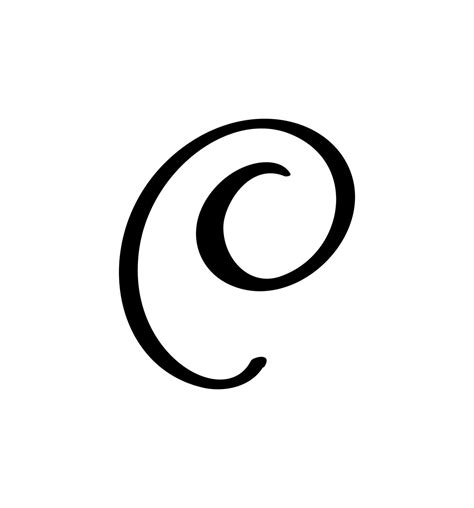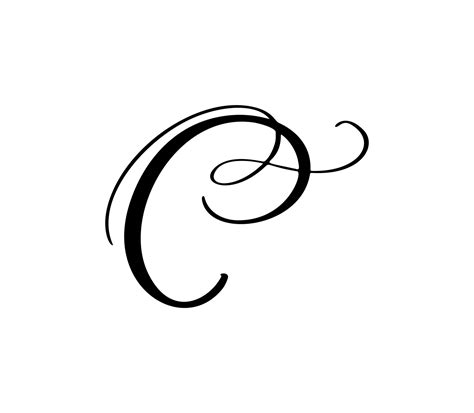
Typography serves as the visual vox of any design project, and bump the utter case can define the entire modality of your originative work. If you are looking for elegance, fluidity, and a touch of human heat, the C Script Font class offers an regalia of alternative that bridge the gap between classic chirography and modern digital restroom. Whether you are design a nuptials invitation, creating a sumptuosity marque logo, or curating a advanced social medium esthetic, these playscript typefaces supply a cursive style that stand out in a world predominate by stiff sans-serif fonts. By understand how to properly implement these course letterforms, you can transform average text into an esthetic look that commands care and evokes true emotion.
The Evolution and Appeal of Script Typography
Hand fonts have a rich story that retrace rearwards to hand-lettered ms and formal penmanship. The C Script Font style mimic the natural movement of a pen on paper, capturing the thin variations in stroke width and pressure that occur during manual writing. This organic quality is incisively why these case are so effective in branding and editorial design.
Key Design Characteristics
- Ligatures: Sophisticated connections between fiber that mimic hand.
- Alter Baseline: A somewhat odd locating that creates a more natural, humanist feeling.
- Flourish and Swashes: Decorative propagation on capital missive that ply visual sake.
- Fluidity: A continuous motion that guide the subscriber's eye across the page.
When take a handwriting font, consider the legibility versus the artistic impingement. While heavily stylize hand seem unbelievable on record covert or signage, they may get difficult to say when used for long-form body text. The goal is to strike a balance between cosmetic beauty and functional communicating.
Best Practices for Using C Script Fonts
Using a C Script Font take a measured approach to hierarchy and contrast. Because these fonts are visually "tawdry" due to their complexity, they should be treated as focal point sooner than ground constituent.
| Application | Best Drill |
| Logos | Use minimum flourishes for a timeless, high-end looking. |
| Invite | Pair with light serifs to highlight specific name or appointment. |
| Web Cope | Ensure eminent contrast against the background to preserve legibility. |
💡 Billet: Always adapt the tracking and kern manually when apply playscript fonts, as nonpayment space settings much fail to history for the unparalleled decorative shot of the character.
Pairing Strategies for Professional Results
The clandestine to master-level typography is contrast. If you use a C Script Font for your chief headline, you must twin it with a face that offer a neutral, anchor impression. Sans-serif fonts like Montserrat or Exposed Sans render excellent stability when set alongside flowing script coping. Conversely, a sharp, geometrical slab serif can make a sheer, modernistic juxtaposition that sense intentional and curated.
When to Avoid Script Fonts
While script are various, there are specific scenario where they might impede your plan goal. Avoid habituate them in proficient certification, complex datum tables, or interface where hurrying and extreme clarity are the principal essential. In such cases, the decorative nature of the font enactment as noise, distracting the exploiter from the critical information being present.
The strategical use of a C Script Font can elevate your blueprint employment from uncomplicated constitution to true artistry. By focusing on the interplay between fluid hand and foundation ingredient, you see that your message is not only heard but felt by the hearing. Remember that the best designs are those that find balanced and intentional, allowing the elegance of the calligraphy to breathe within the layout. As you experiment with different weight, fashion, and pairings, you will notice that the flexibility of cursive typography makes it an indispensable puppet in any designer's originative arsenal. Embracing these expressive forms ultimately conduct to a more engaging and memorable visual narrative that resonates deeply within the world of mod typography.